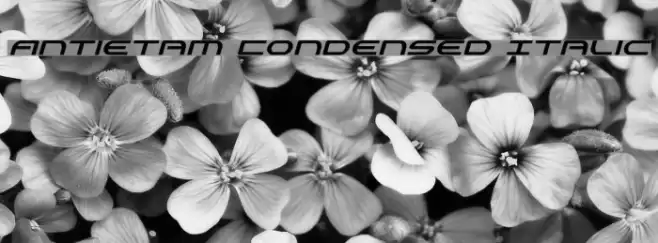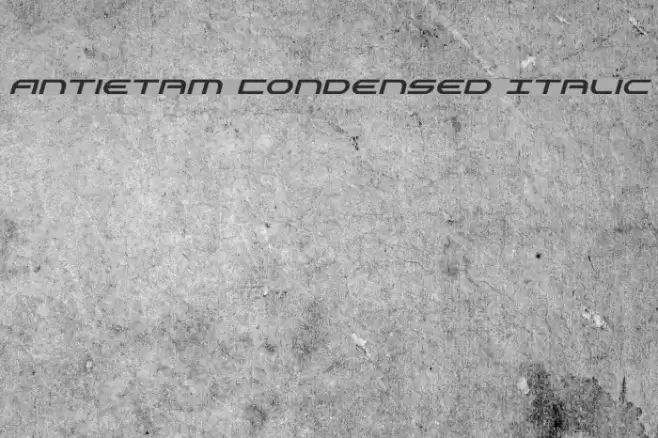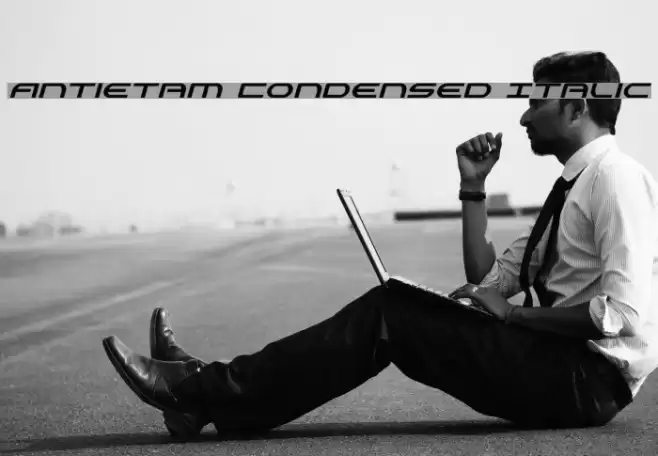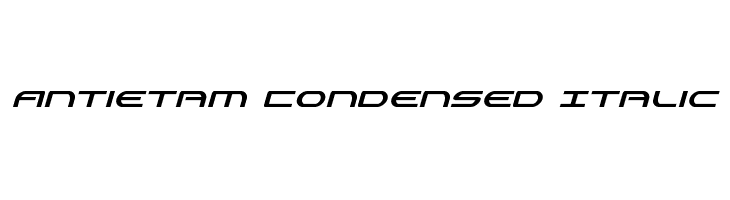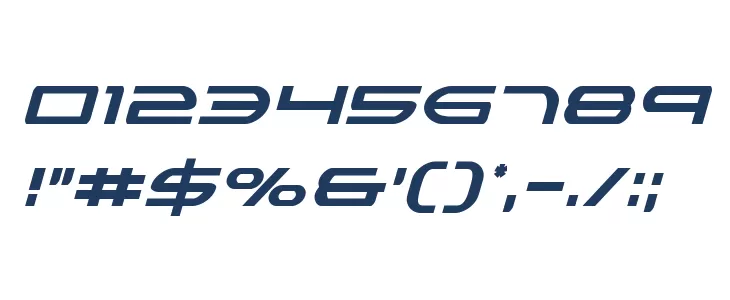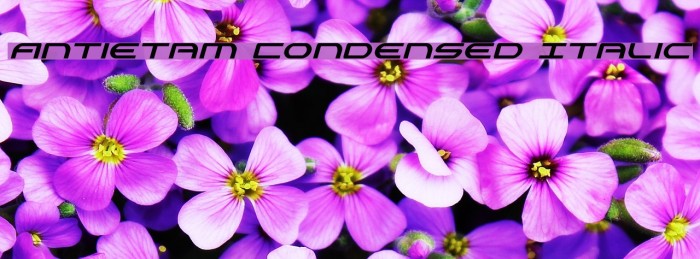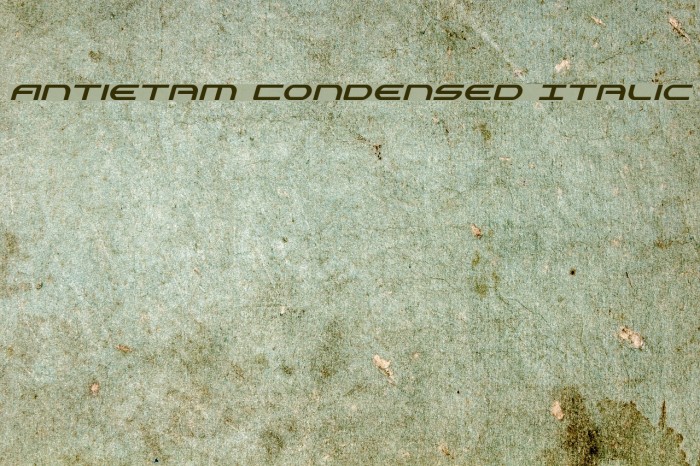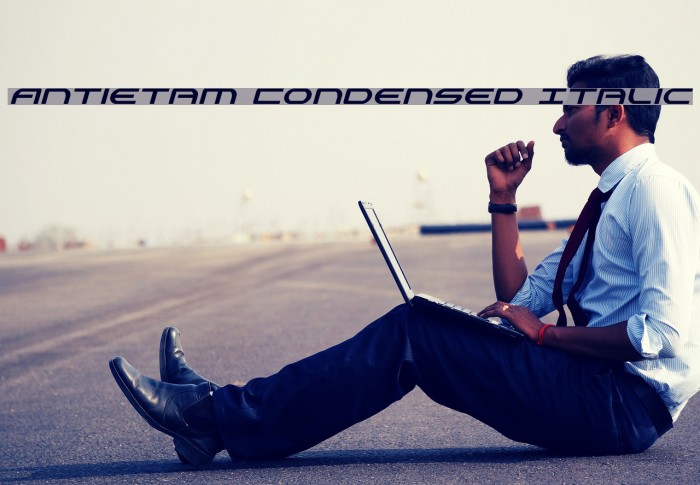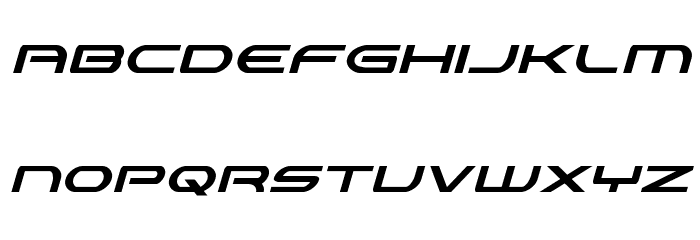
Antietam Condensed Italic Font
Antietam Condensed Italic Description
This font features a sleek, modern design with a condensed and italicized style. The characters are elongated and slightly slanted, giving a sense of motion and dynamism. The strokes are consistent in thickness, providing a uniform appearance across all characters. The uppercase and lowercase letters maintain a cohesive look, with sharp angles and clean lines. The numerals and special characters follow the same design principles, ensuring a harmonious overall aesthetic. This font is ideal for projects that require a contemporary and stylish touch.
A sleek, modern, condensed italic font with uniform stroke thickness from Uncategorized fonts.
- Proposed Projects: Ideal for branding, advertising, and editorial design projects that require a modern and dynamic appearance.